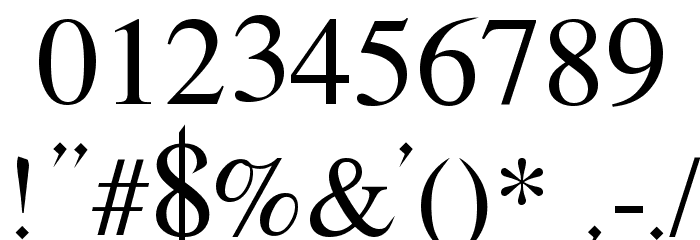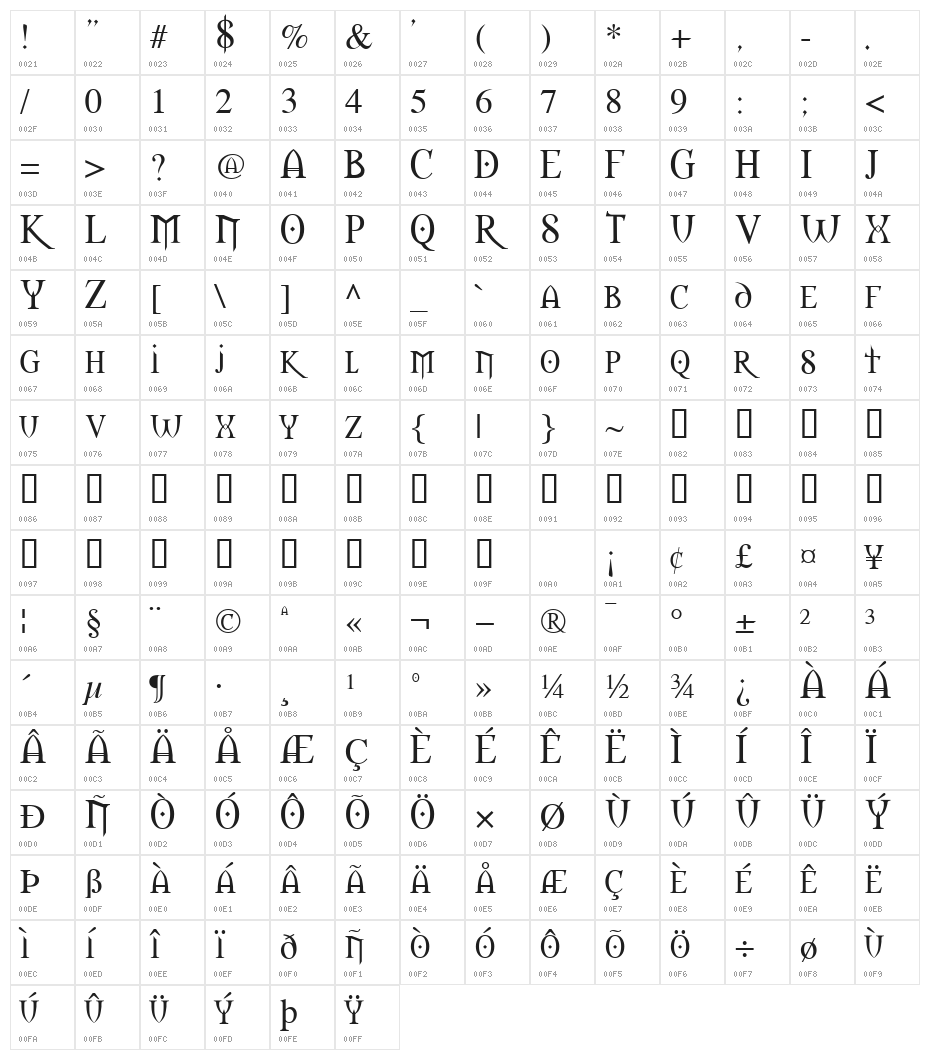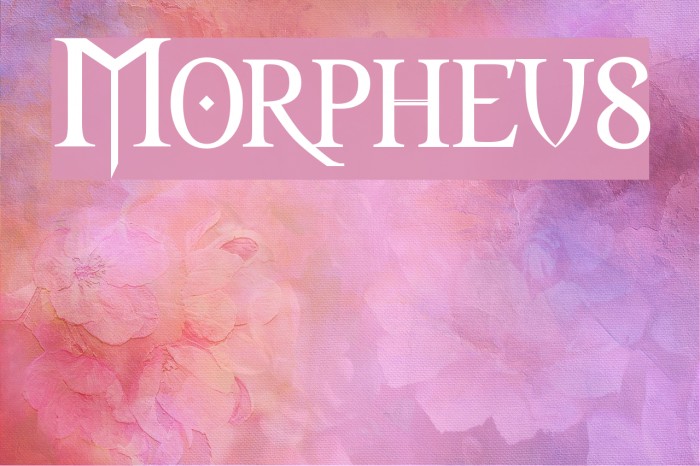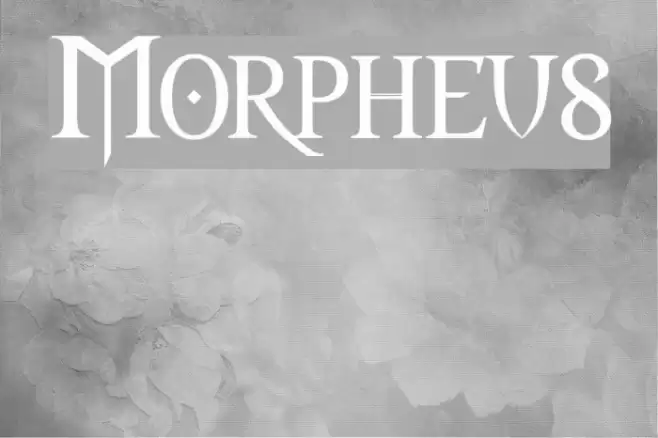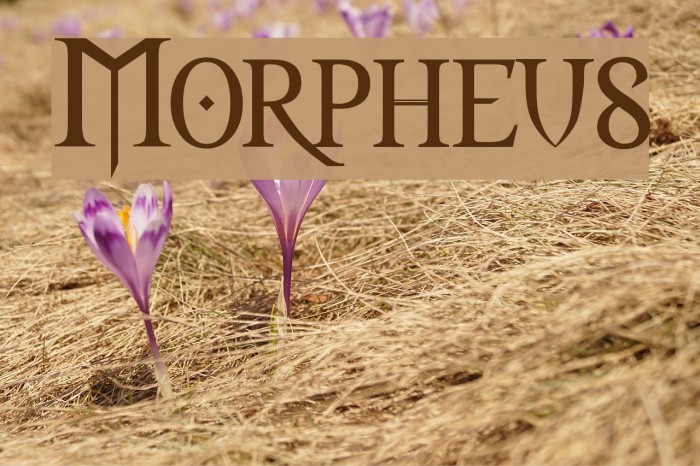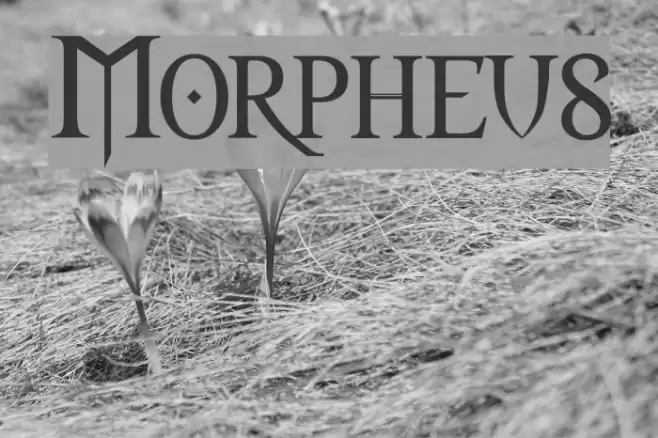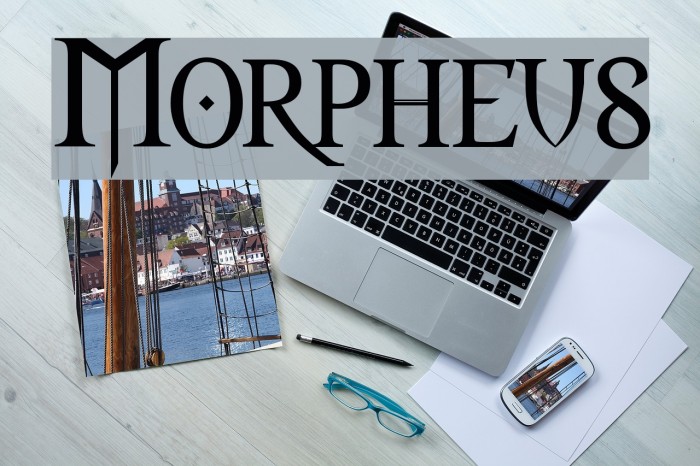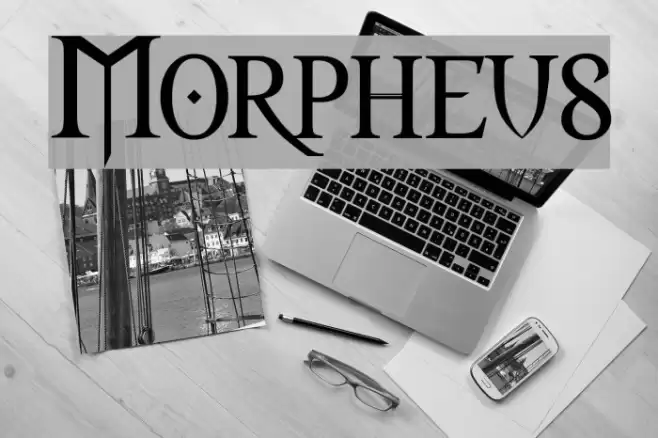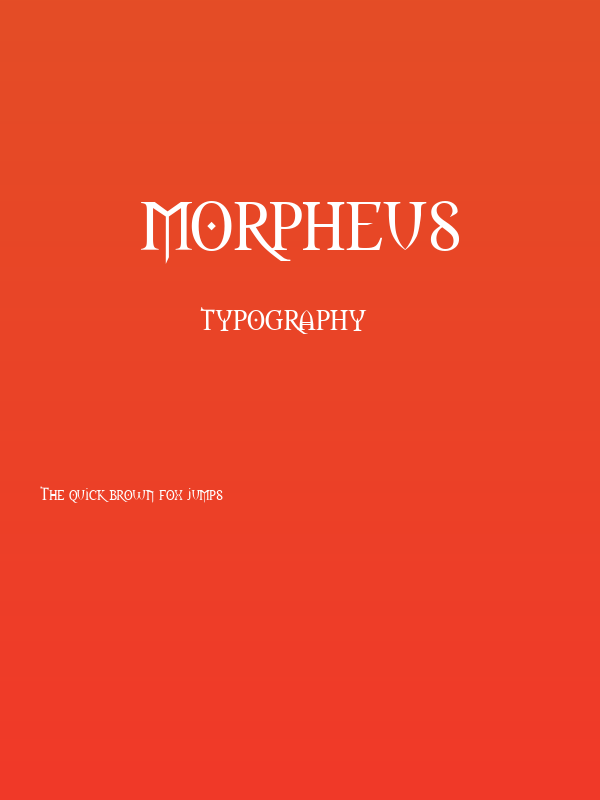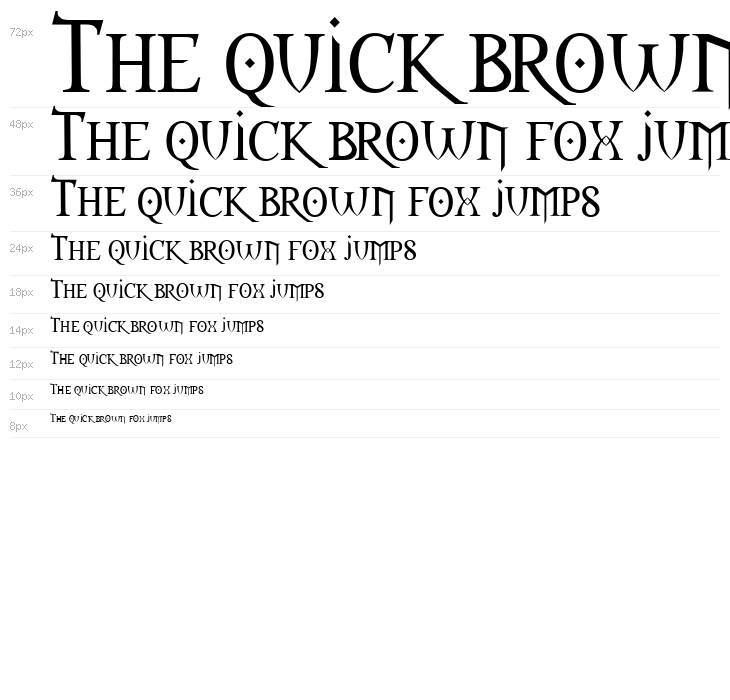
Morpheus Font
Morpheus Description
This font features a unique blend of classic and gothic elements, characterized by its sharp, angular serifs and distinctively pointed terminals. The uppercase letters exhibit a strong presence with their bold, dramatic strokes, while the lowercase letters maintain a consistent style that complements the uppercase. The numerals are elegantly designed, maintaining the font's overall aesthetic with their curved and pointed features. Special characters are crafted with the same attention to detail, ensuring a cohesive look across all glyphs. This font's intricate design makes it suitable for projects that require a touch of elegance and sophistication.
| Overall Style | Gothic, Classic |
| Use Case | Headlines, Logos, Decorative text |
| Proposed Projects | Ideal for use in fantasy book covers, movie posters, and branding for luxury products. |